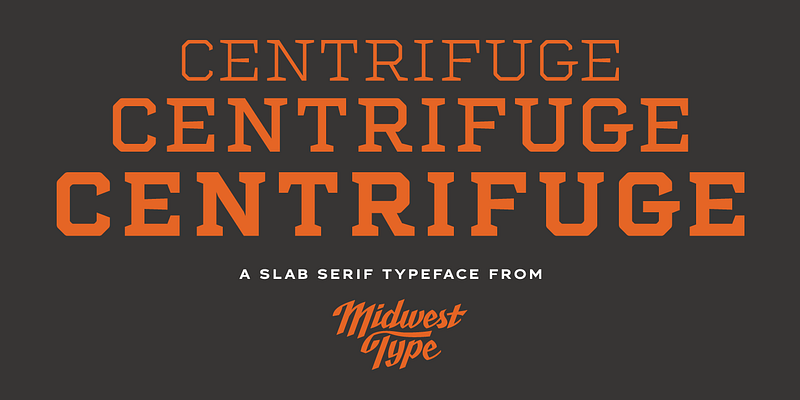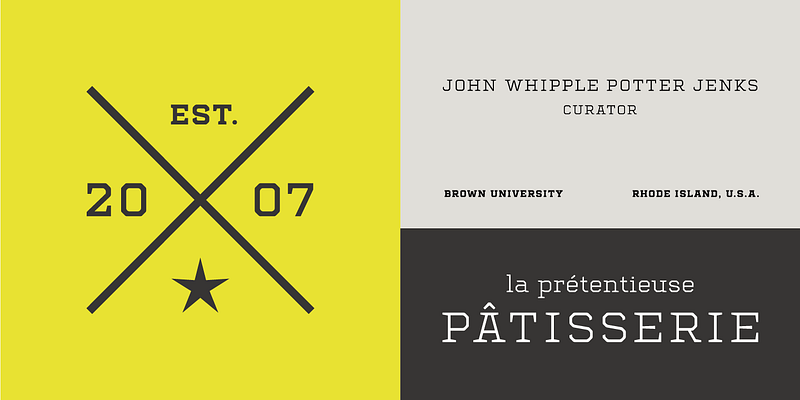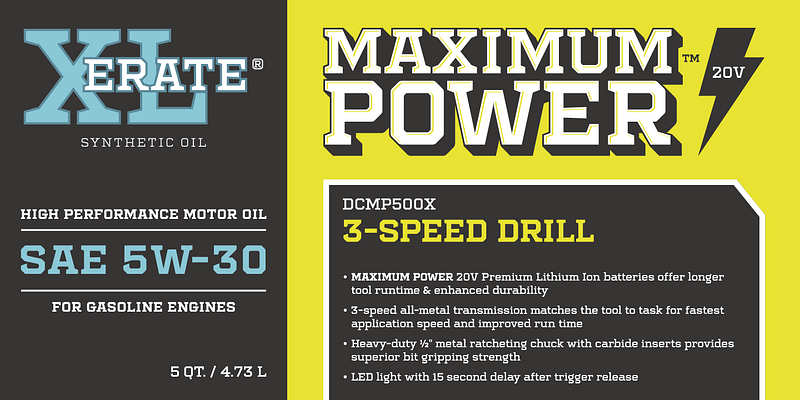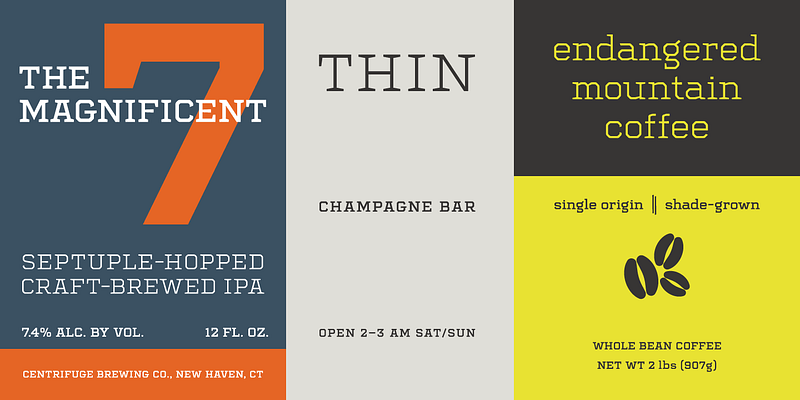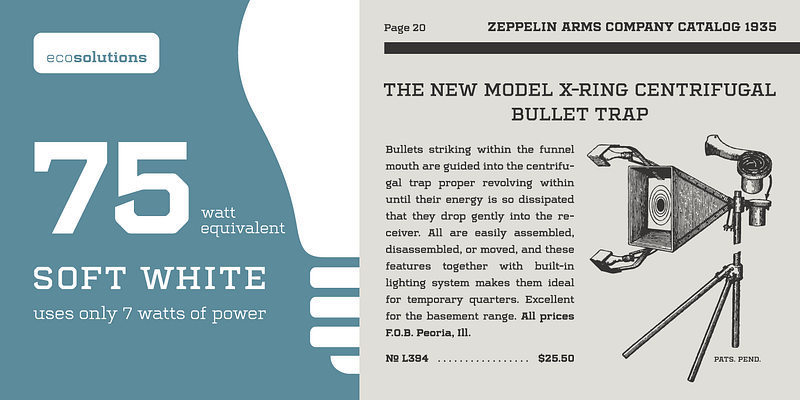
Centrifuge is a faceted, wedge-serif with soft geometric shapes and sharply angled terminals. Originally inspired by manufacturer badges on old laboratory equipment, this family’s quirky but versatile design also looks like wood type or letter shapes used by engravers. Depending on how it’s set, it can be used anywhere from formal and elegant to funky and chunky. Centrifuge is suitable for small sizes and in short-form text and headlines but sings in an all-caps setting with generous tracking.